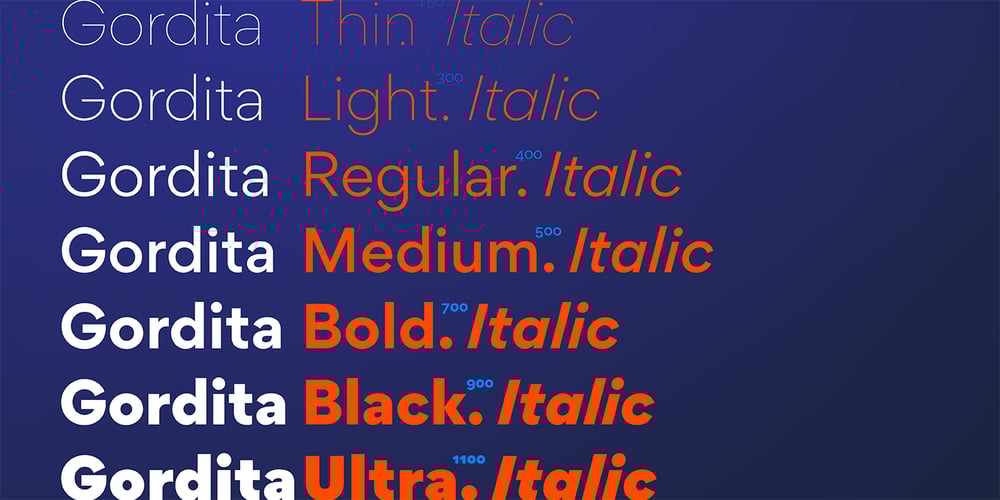
Gordita Font Family was designed by Thomas Gillett and published by Type Atelier. Gordita contains 14 styles and family package options. Gordita is a minimal sans serif typeface with a geometric foundation that has been built upon with modern details that result in an optically balanced, friendly typeface. When designing Gordita referring to features in Futura were influential as were the structural and harmonious strokes of Gotham. Forms have been optically compensated to appear natural and purely geometric. Joints are slightly tapered and ink traps feature in heavier weights with the purpose of achieving maximum legibility. Gordita has been tested in print and on screen in a wide range of point/pixel sizes. The family is equipped with OpenType features including alternate glyphs, fractions, case sensitive forms, small figures, arrows and symbols as well as old style and tabular figures. Now delivered in 7 weights with matching italics that slant at 15°. The italics are slightly lighter and narrower than the upright versions. The horizontal weighting in the italics have been reduced to compensate for the loss of vertical stroke thickness. With support for over two hundred languages with an extended Latin and Cyrillic character set, Gordita is ready to be put to work. Designed by Thomas Gillett, metrics and engineering by iKern (Igino Marini). The family has been recently updated to include two additional weights (Thin & Ultra + their matching italics) as well as slightly opened apertures for better legibility in the heavier weights, new glyphs and more opentype features.